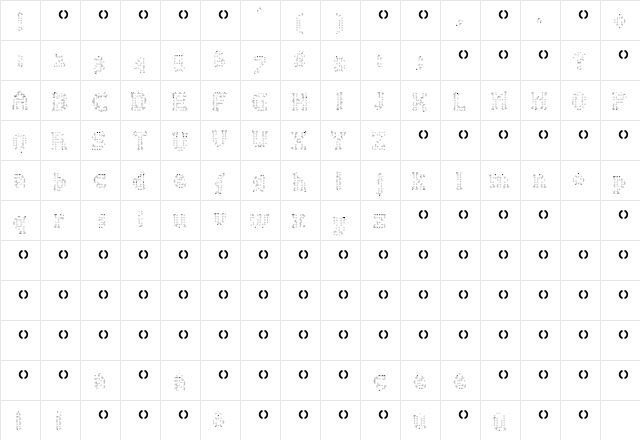
3BubbleBath Bold
Design Context for 3BubbleBath Typeface
3BubbleBath trades formality for fun, with bouncy, characterful letterforms that bring warmth and energy to any project.